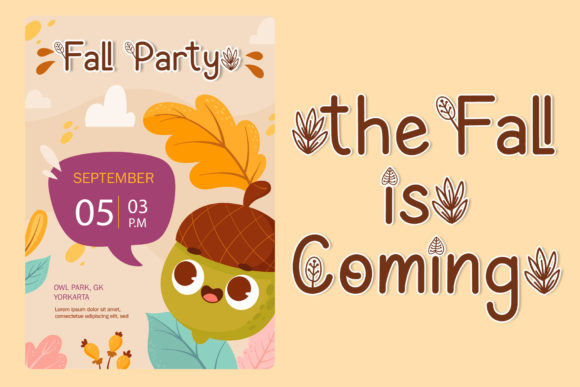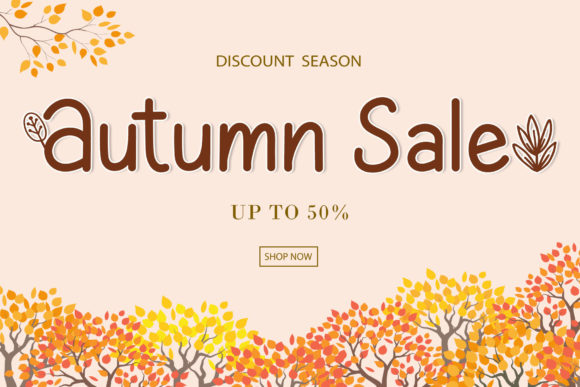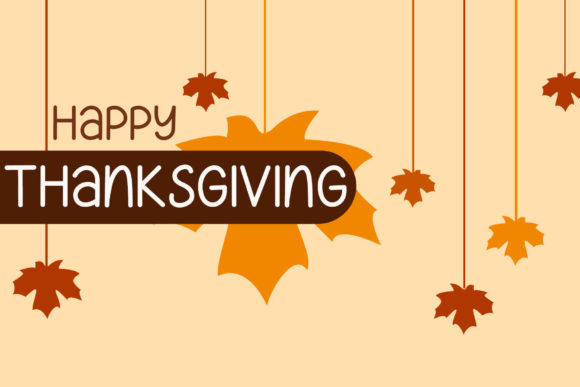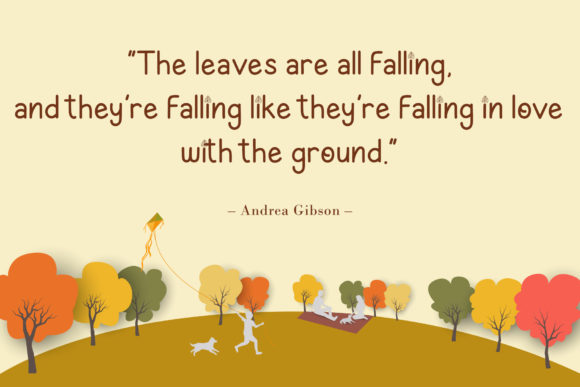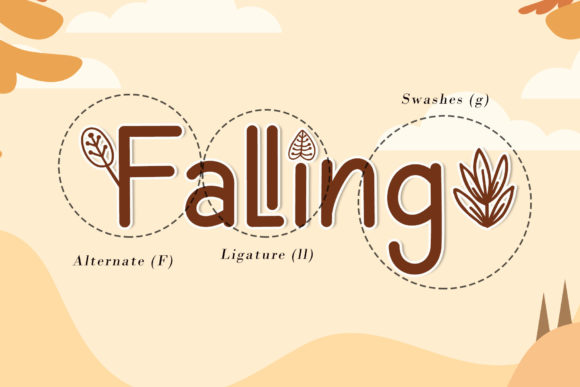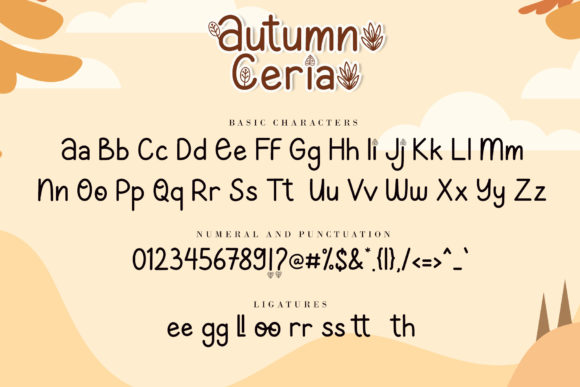
Introducing Autumn Ceria Font: Elevate Your Designs with a Simple yet Adaptable Handwritten Style
Are you on the hunt for a font that can effortlessly elevate your designs, whether you’re working on a creative project, crafting a brand identity, or simply looking to add a personal touch to your digital or print materials? Look no further than the Autumn Ceria Font, a beautifully simple and adaptable handwritten font designed to inspire and transform your work.
What Makes Autumn Ceria Font Stand Out?
Autumn Ceria is not just another font; it’s a design essential that brings a fresh, modern vibe to any project. Here are a few key features that make it a must-have for designers and crafters alike:
- Simple and Adaptable: Despite its simplicity, Autumn Ceria boasts a versatility that allows it to fit seamlessly into a wide range of design contexts, from elegant branding to playful crafts.
- Handwritten Style: The font’s handwritten nature adds a personal, warm touch to your designs, making them stand out with a unique character that resonates with audiences.
- PUA Encoded: Being PUA (Private Use Area) encoded, Autumn Ceria offers ease of use like no other. This encoding means that you can access all glyphs and swashes without hassle, giving you the flexibility to experiment and create with more freedom.
Whether you’re a professional designer working on a client’s branding project or a crafter looking to personalize your DIY creations, Autumn Ceria Font offers numerous benefits:
- Enhanced Creativity: With its wide range of glyphs and swashes, Autumn Ceria encourages creativity and experimentation, allowing you to push the boundaries of your design work.
- Time-Efficient: Thanks to its PUA encoding, you can quickly access and use the font’s various features, saving you time and streamlining your design process.
- Consistency and Professionalism: For designers, using a unique and adaptable font like Autumn Ceria can help in creating a consistent visual brand identity that stands out professionally.
Tips for Maximizing Autumn Ceria’s Potential
To get the most out of Autumn Ceria Font, consider the following tips:
- Mix and Match: Combine Autumn Ceria with other fonts to create interesting contrasts and visual hierarchies in your designs.
- Play with Sizes: Experiment with different font sizes to emphasize certain words or phrases, adding depth to your text.
- Utilize Swashes: Don’t overlook the swashes! They can add a decorative touch to your designs, making them more engaging and dynamic.
Autumn Ceria Font is more than just a typeface; it’s a tool for creativity and self-expression. Its simplicity, adaptability, and extensive feature set make it an invaluable asset for designers and crafters looking to infuse their projects with a personal touch. Whether you’re aiming for elegance, whimsy, or anything in between, Autumn Ceria is ready to help you bring your vision to life.